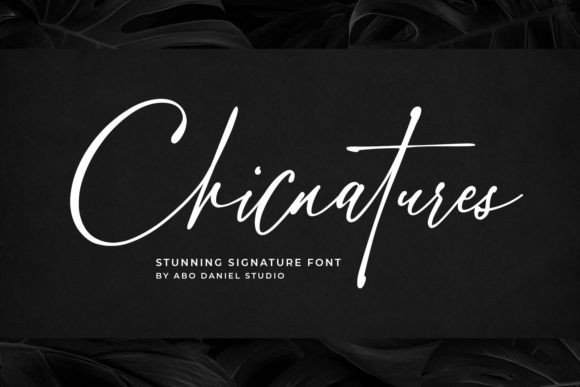
Introducing Chicnatures Font: Elevate Your Designs with Elegance and Style
In the world of design, fonts play a crucial role in conveying the tone and personality of a project. For crafters, designers, and DIY enthusiasts, finding the perfect font can be a game-changer. If you’re on the hunt for a stunning, elegant, and stylish signature script font, look no further than Chicnatures Font. This beautiful font is perfect for adding a personalized touch to various designs, including wedding invitations, thank you cards, greeting cards, logos, and more.
What Makes Chicnatures Font Special?
Chicnatures Font is a meticulously crafted script font that exudes sophistication and glamour. Its elegant strokes and flowing curves make it an ideal choice for designs that require a touch of luxury and refinement. Here are some key features that set Chicnatures Font apart:
• Elegant and Stylish: Chicnatures Font boasts a beautiful, cursive script style that’s perfect for creating stunning designs that demand attention.
• Versatile: This font is incredibly versatile and can be used on a wide range of projects, from wedding invitations and greeting cards to logos and branding materials.
• Personalized Touch: With Chicnatures Font, you can add a personal touch to your designs, making them truly unique and special.
• Easy to Read: Despite its elegant and cursive nature, Chicnatures Font remains easy to read, making it perfect for both digital and print designs.
Perfect for Crafters and Designers
Chicnatures Font is a dream come true for crafters and designers who want to elevate their projects with a touch of elegance. Whether you’re creating:
• Wedding Invitations: Make your wedding invitations truly special with Chicnatures Font. Its elegant style is perfect for formal and informal wedding designs.
• Greeting Cards: Add a personal touch to your greeting cards, making them stand out from the rest.
• Logos and Branding: Use Chicnatures Font to create stunning logos and branding materials that reflect your business’s personality and style.
• Thank You Cards: Express your gratitude in style with Chicnatures Font. Its elegant script is perfect for thank you cards and other correspondence.
Tips for Using Chicnatures Font
To get the most out of Chicnatures Font, here are some tips to keep in mind:
• Pair with Simple Backgrounds: Let Chicnatures Font take center stage by pairing it with simple backgrounds that don’t compete for attention.
• Experiment with Colors: Play around with different colors to find the perfect match for your design. Chicnatures Font looks stunning in a range of colors, from metallic gold to soft pastels.
• Use on High-Quality Paper: For print designs, use high-quality paper to showcase Chicnatures Font in all its glory.
Chicnatures Font is a stunning, elegant, and stylish signature script font that’s perfect for designers and crafters looking to add a touch of luxury to their projects. With its versatile nature, elegant style, and ease of use, Chicnatures Font is sure to become a favorite in your design arsenal. So why wait? Download Chicnatures Font today and start creating beautiful, personalized designs that demand attention.
Whether you’re a seasoned designer or a DIY enthusiast, Chicnatures Font is sure to inspire your creativity and take your designs to the next level. So go ahead, get creative, and make your designs shine with Chicnatures Font!